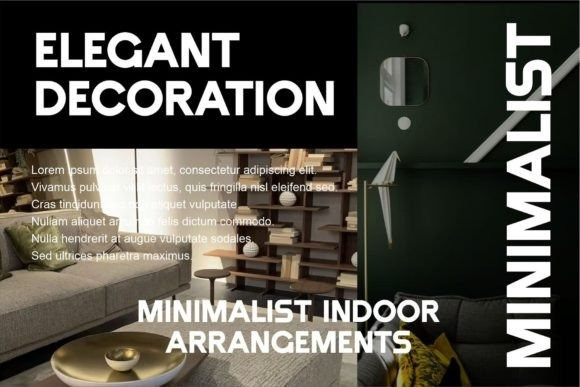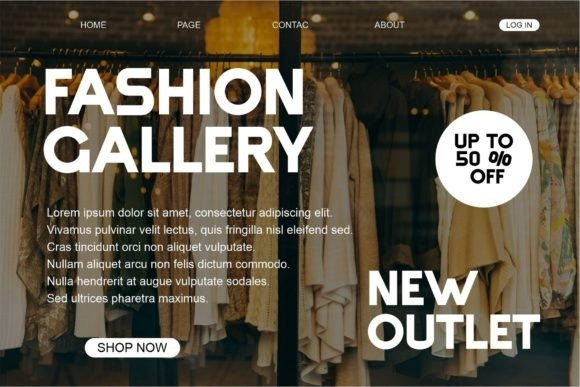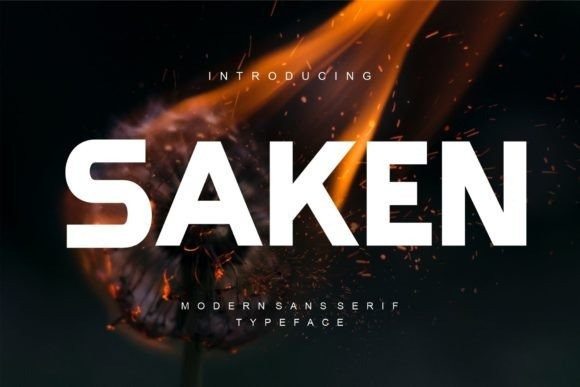
Saken Font
Saken Font is a modern sans serif typeface, inspired by the famous minimalist logo perfect for the purposes of designing templates, brochures, videos, advertising branding, logos, invitation, layout design, elegant crafting, beauty design and much more.